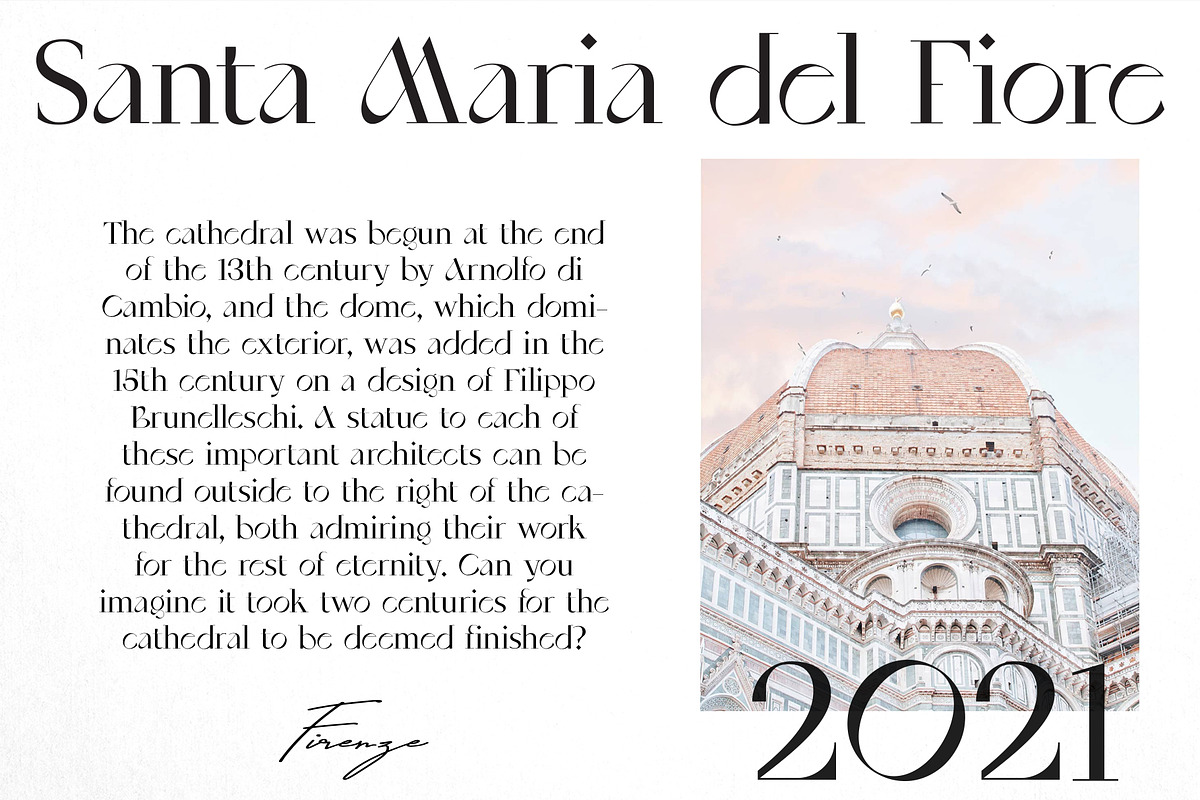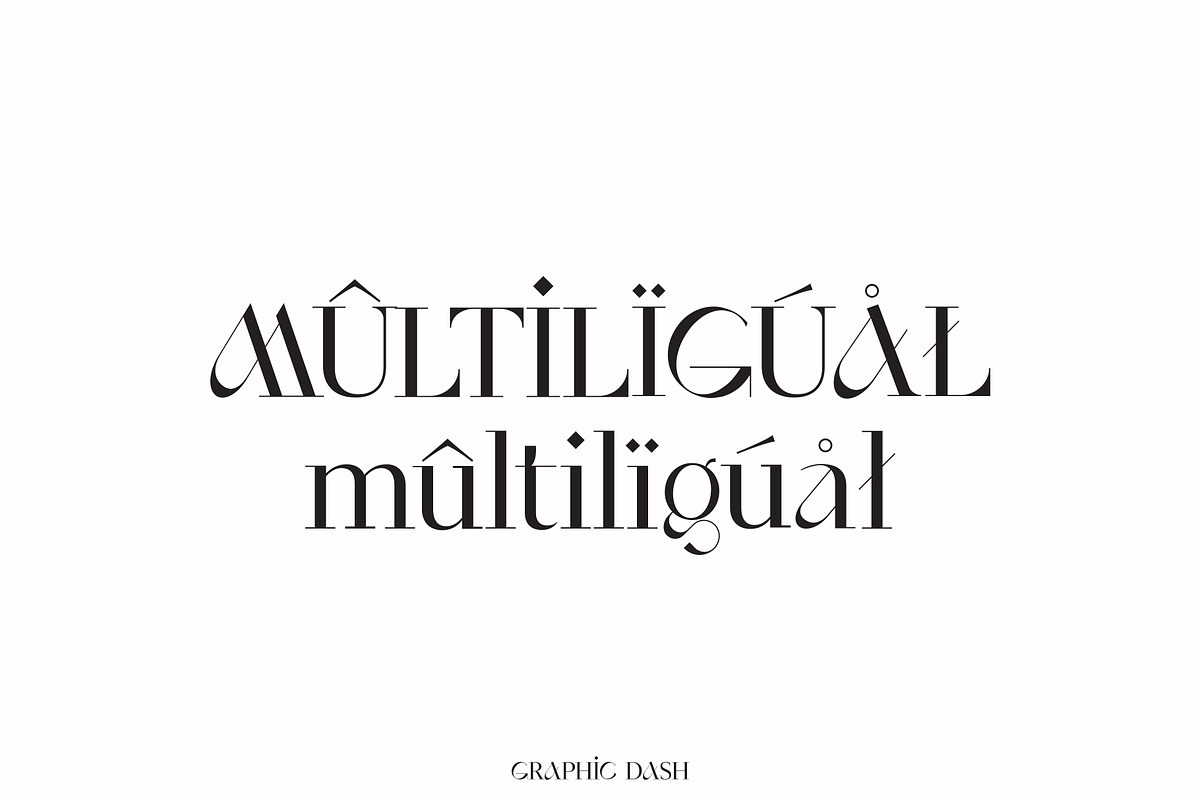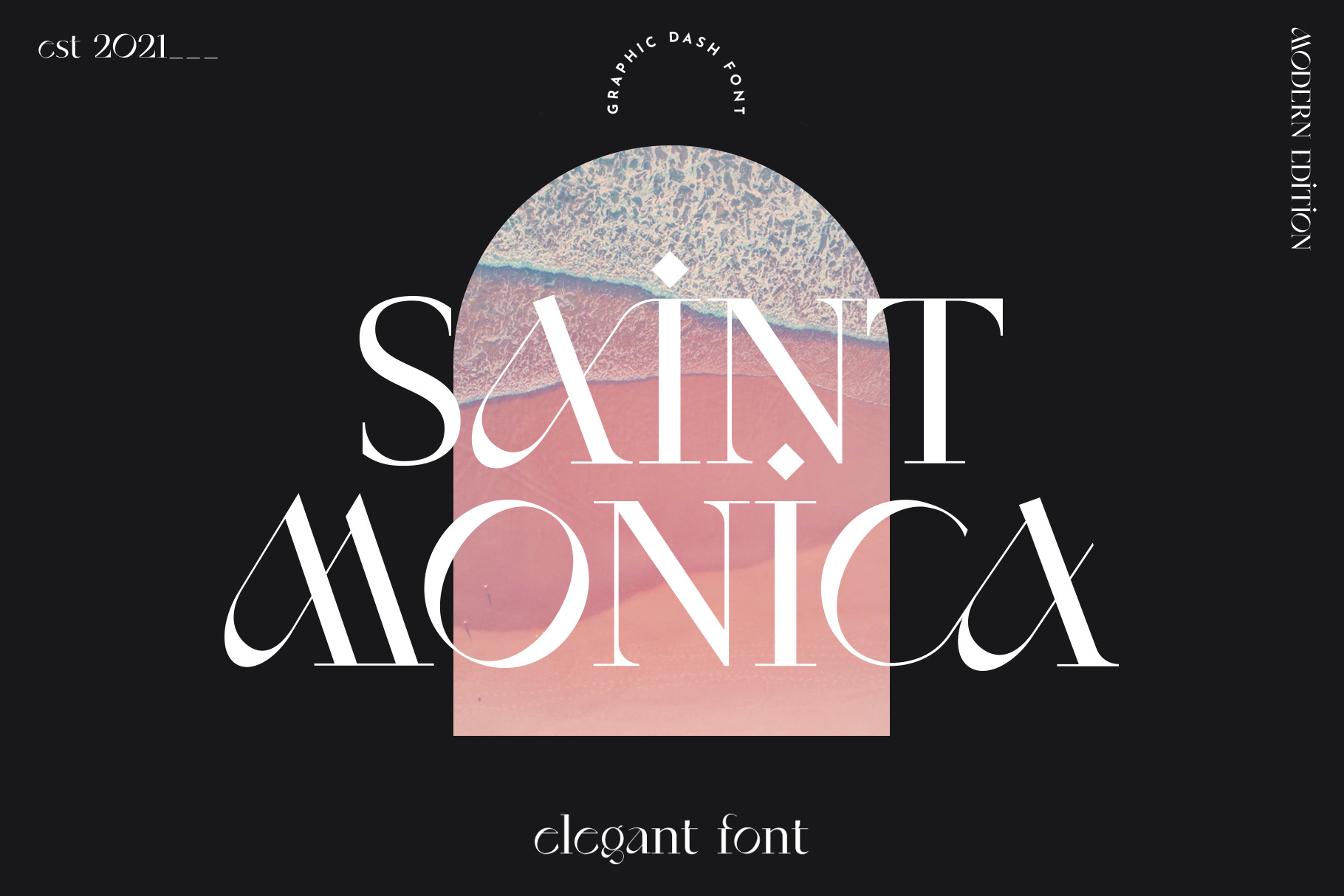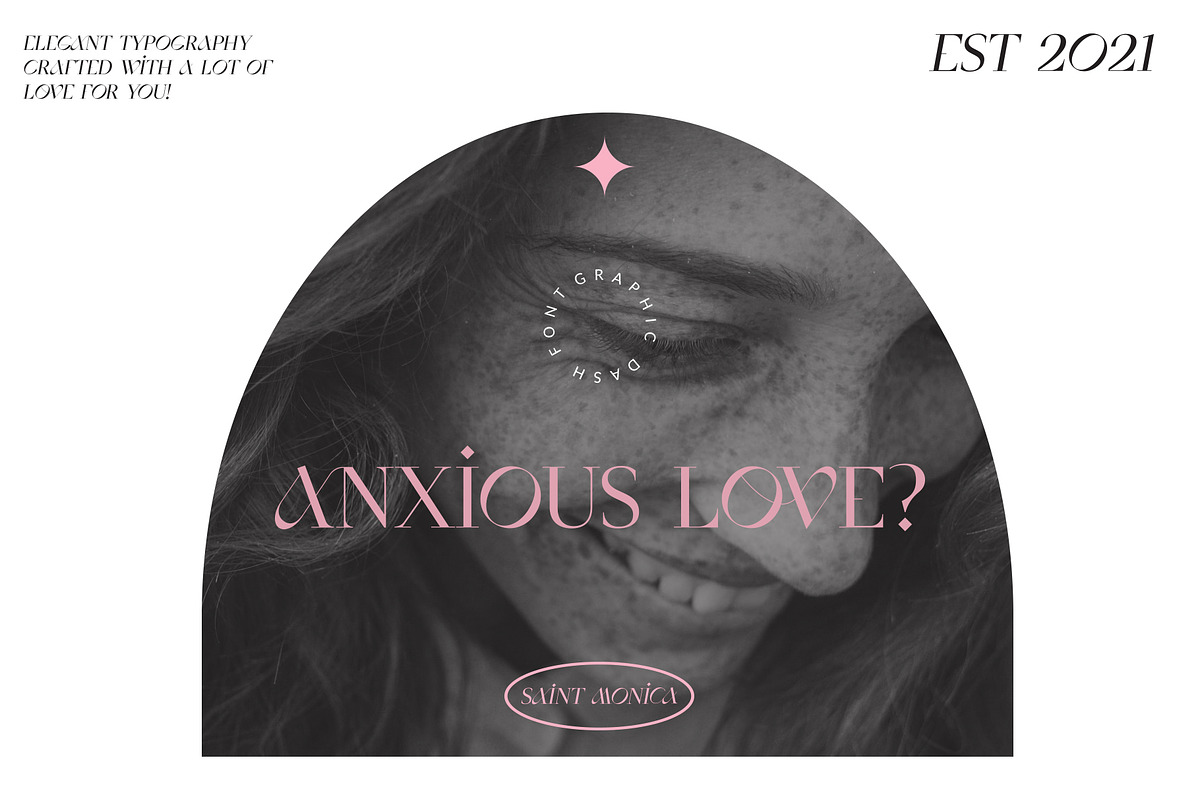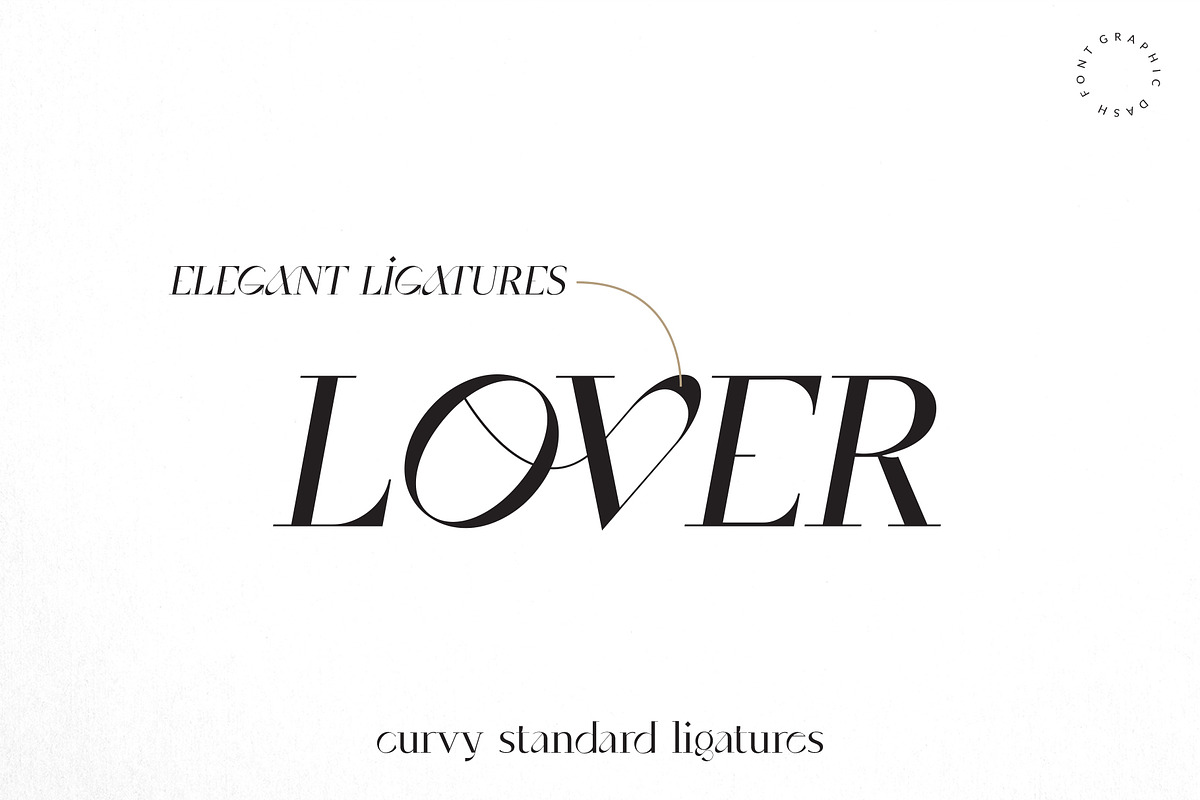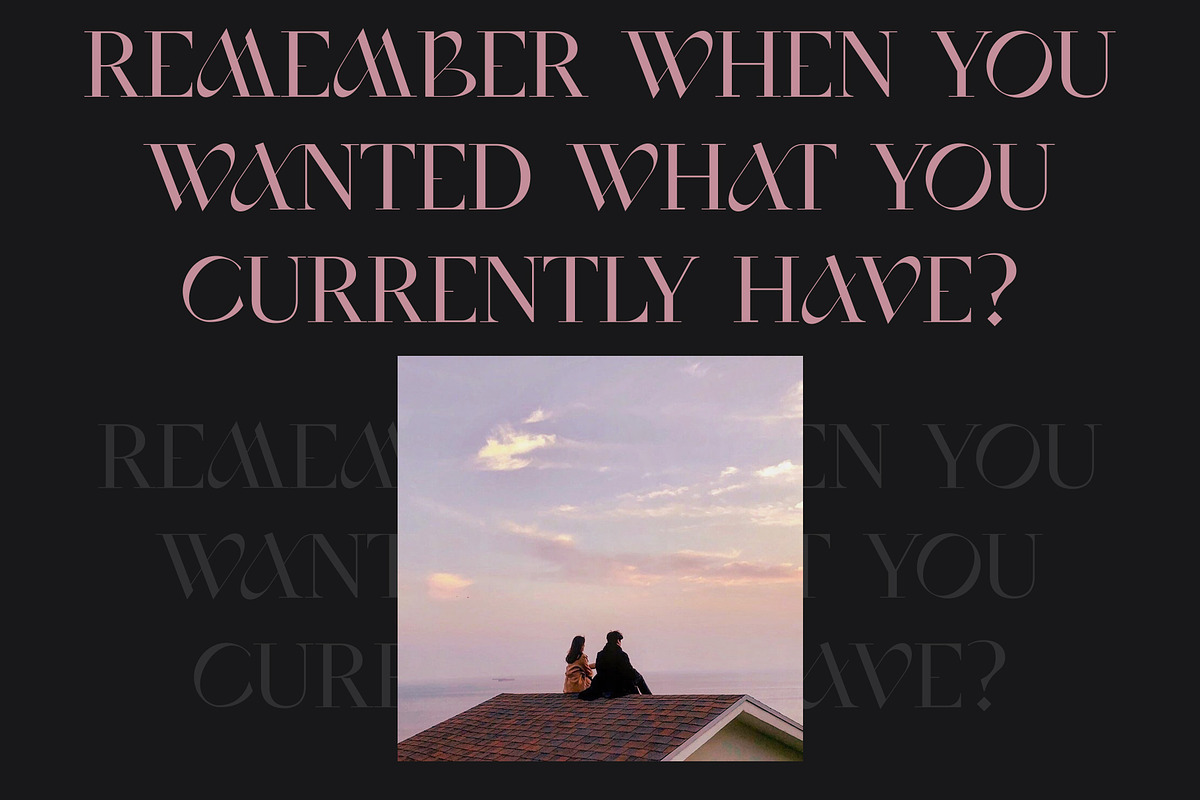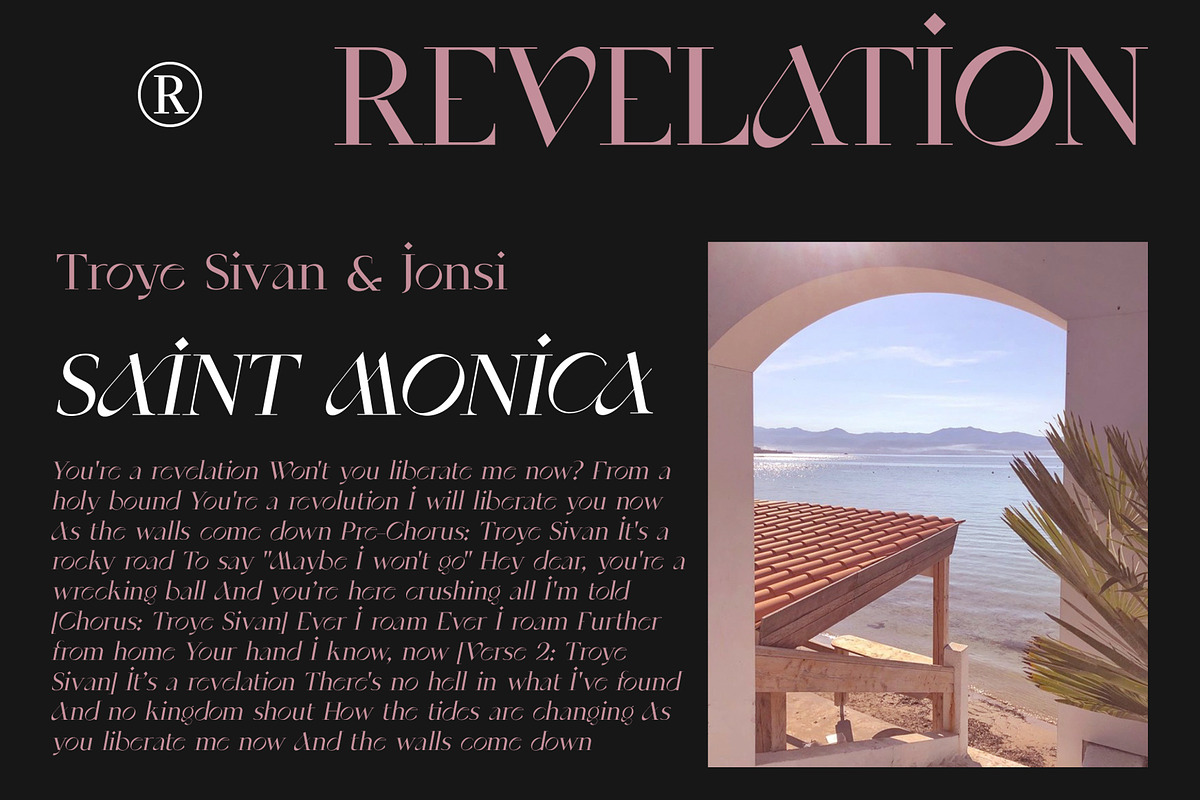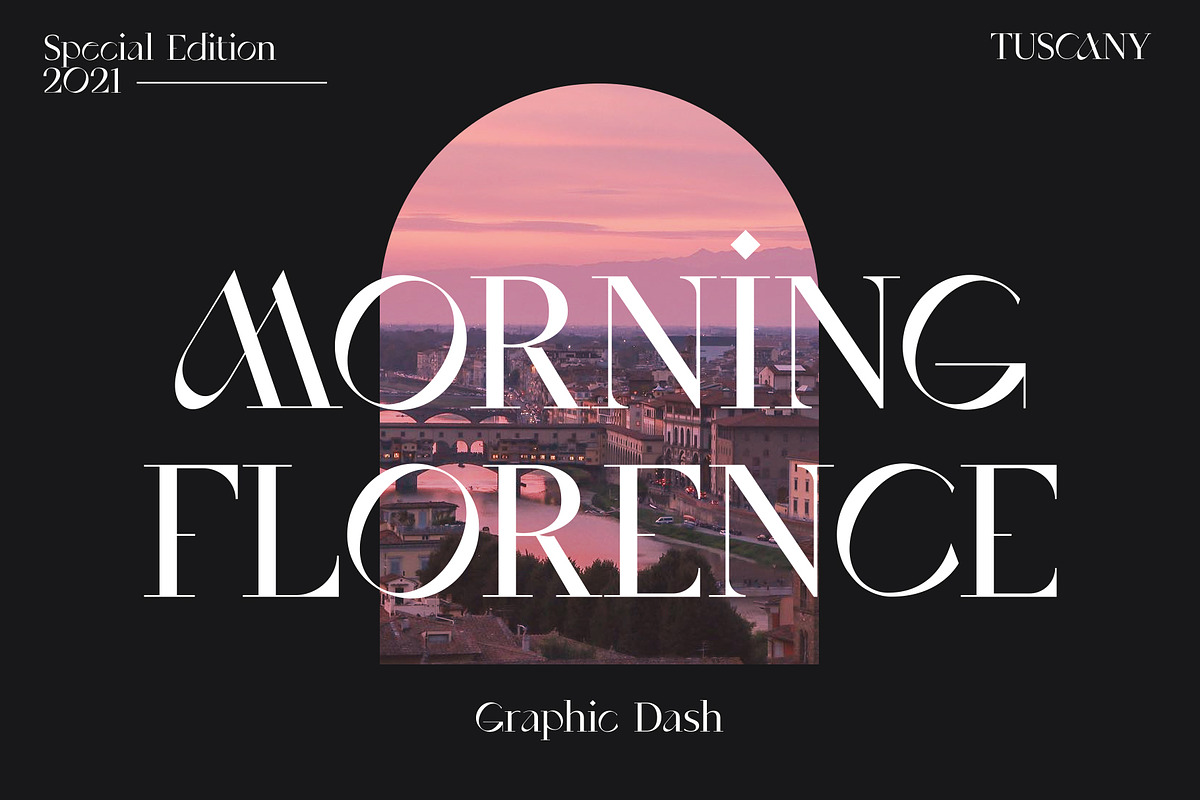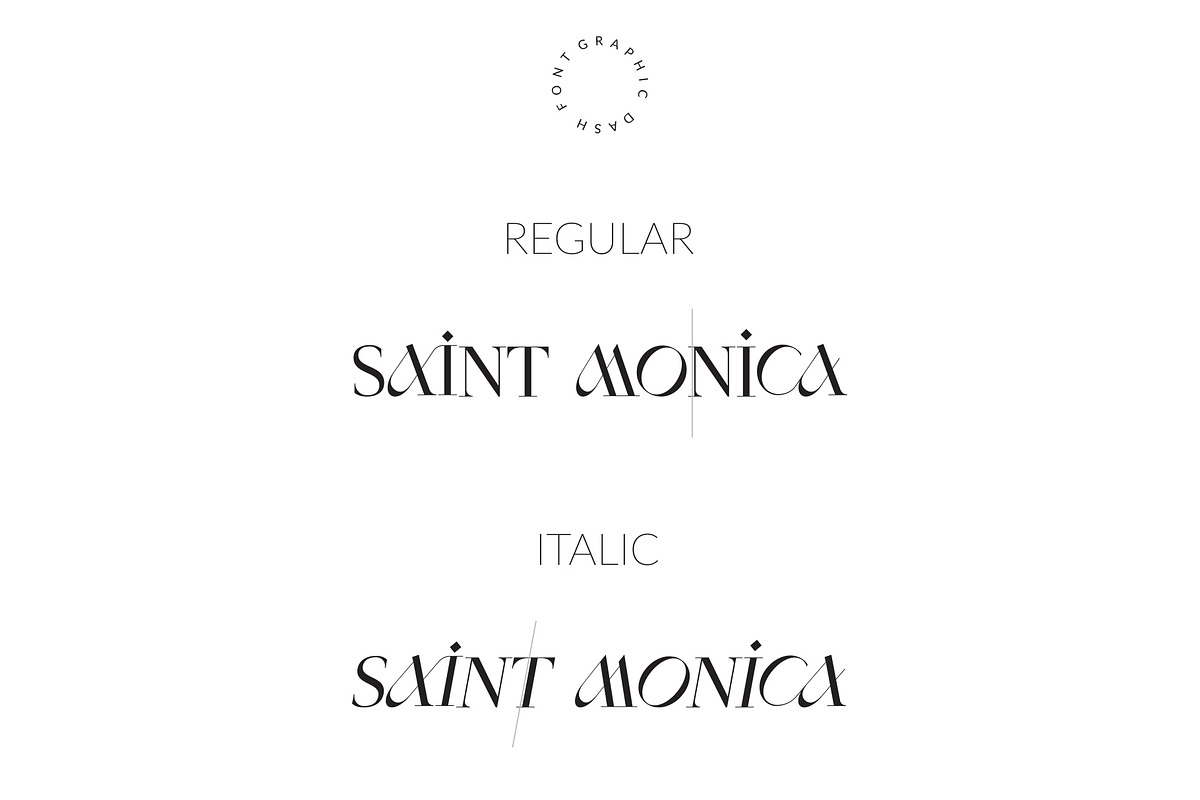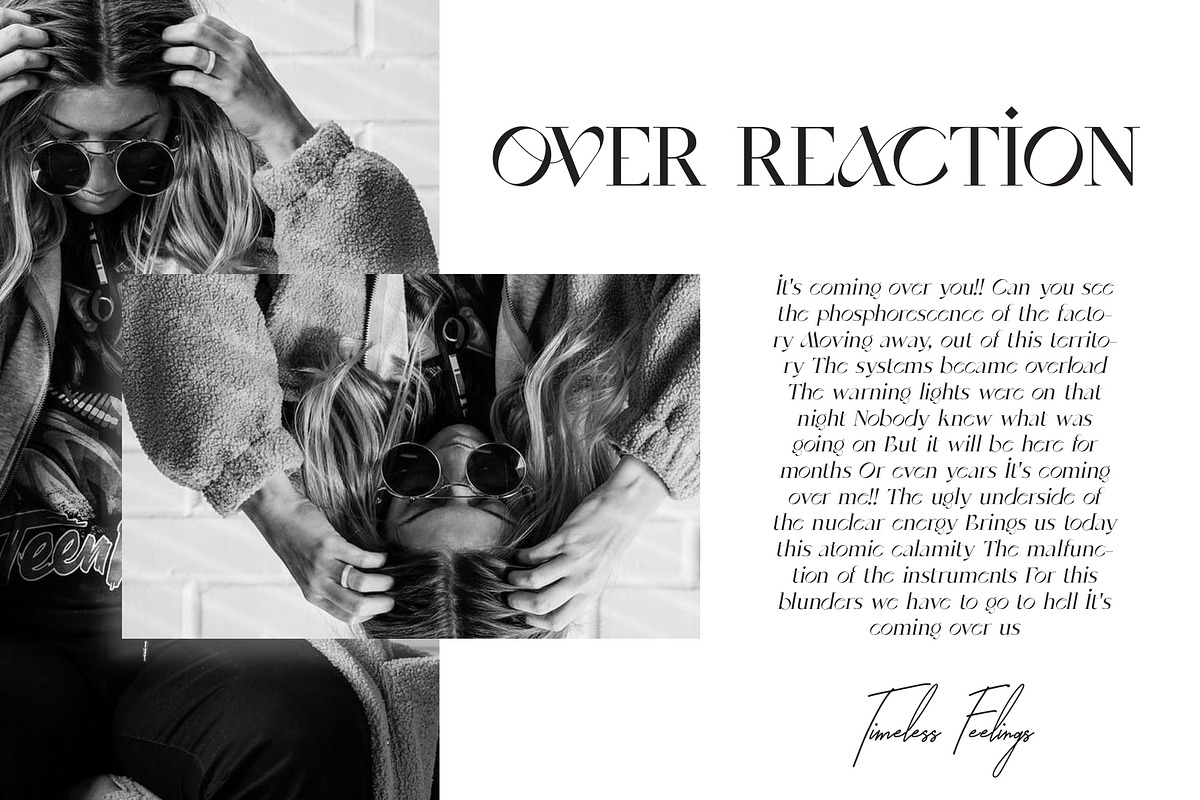
SaintMonica - Elegant Ligatures Font
SaintMonica is a versatile, modern, and elegant font. It has a unique style with standard ligatures, and supports multilingual languages. SaintMonica includes regular and italic versions.
All gorgeous ligatures in these versions turn on automatically and you don't need any special programs to use them.
Create unique & beautiful logotype, use it as an elegant solution for your next magazine layout, or choose SaintMonica for any graphics that require a sleek look with an elegant flair.
- Uppercase/Lowecase, Ligatures, Numbers, Punctuation & Multilingual support.